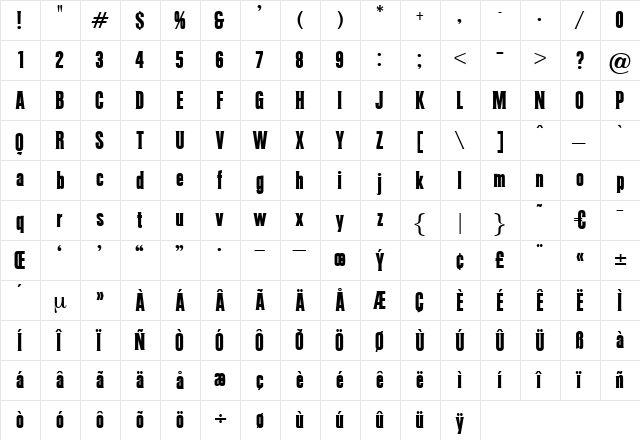
JuliusRegular Regular
Design Context for JuliusRegular Typeface
JuliusRegular takes a measured approach to typography — its balanced proportions and neutral character make it a reliable workhorse for both digital and print work.